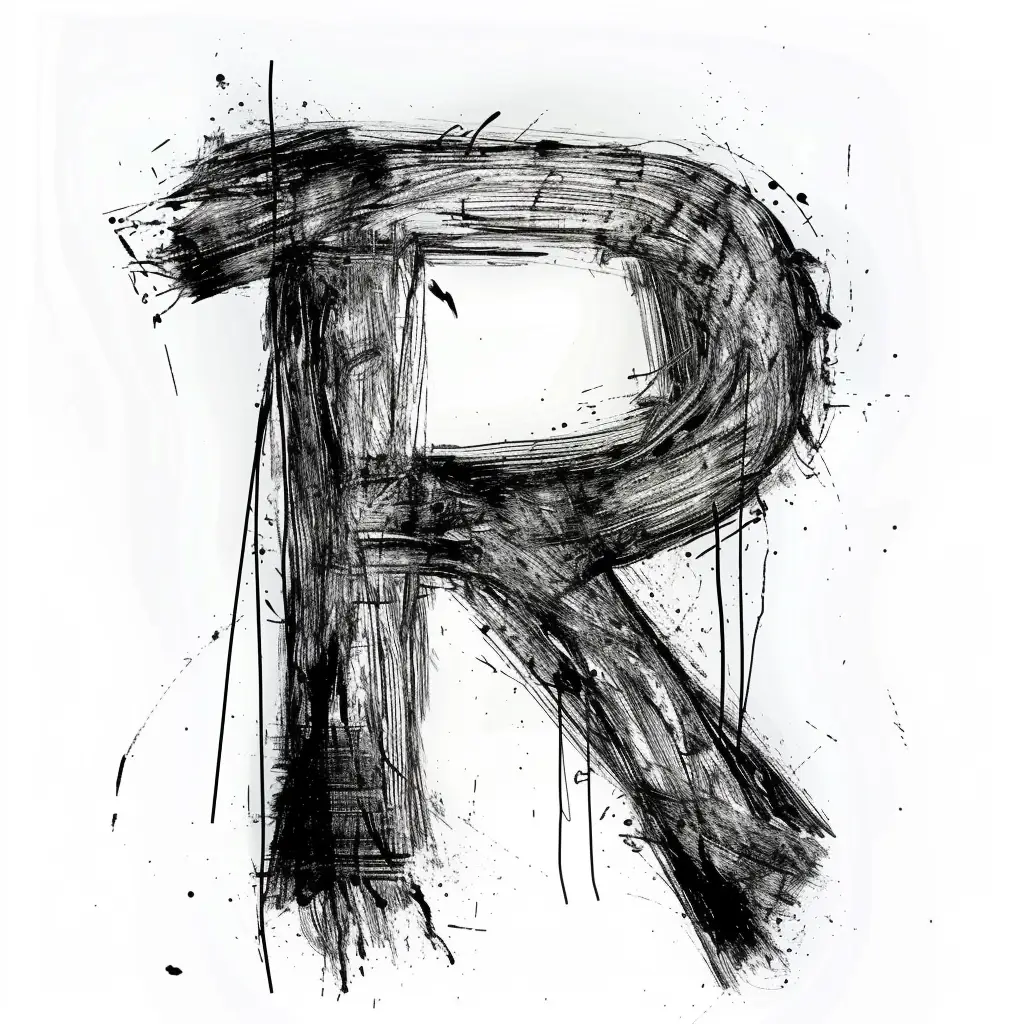
The image features a stylized, hand-drawn letter "R" rendered in bold, textured black ink against a white background. The letter is characterized by rough, expressive brushstrokes, splatters, and scattered lines, giving it an abstract, artistic, and slightly chaotic appearance. The monochromatic color scheme emphasizes the contrast between the dark, dynamic strokes and the clean, light backdrop, highlighting the letter’s bold, handcrafted aesthetic.